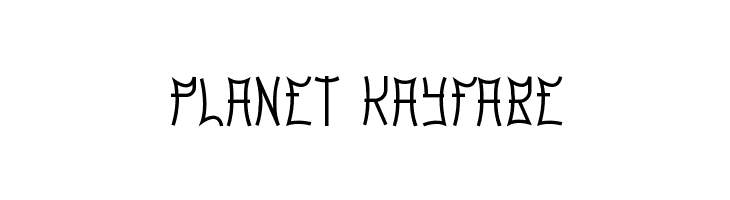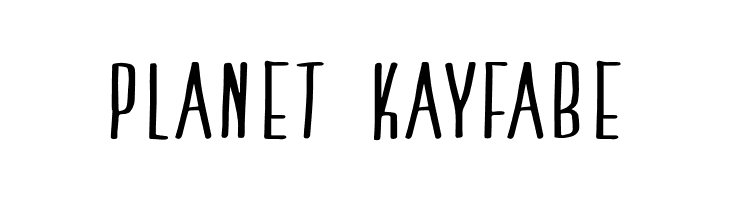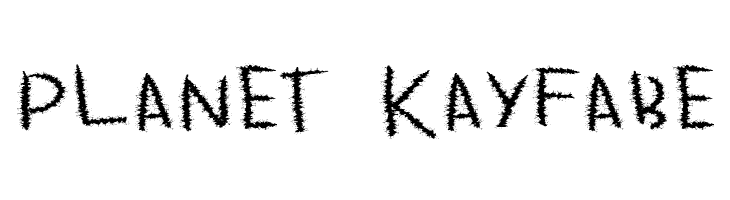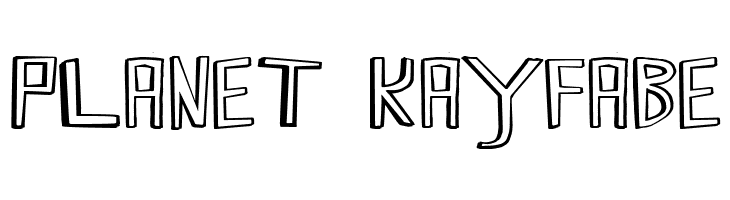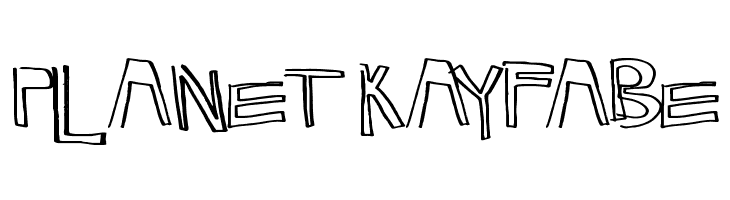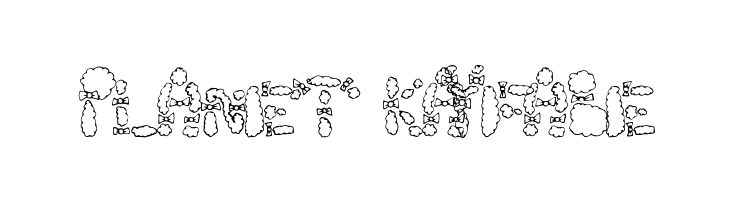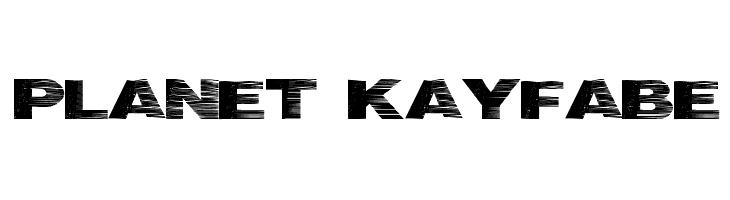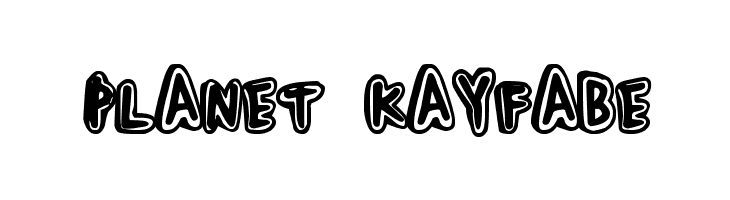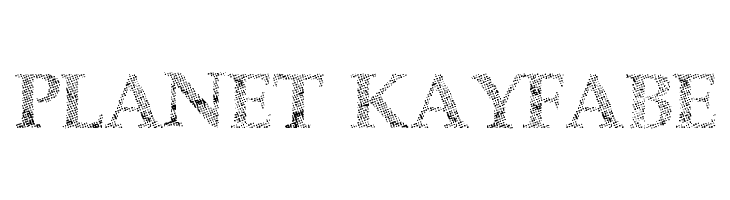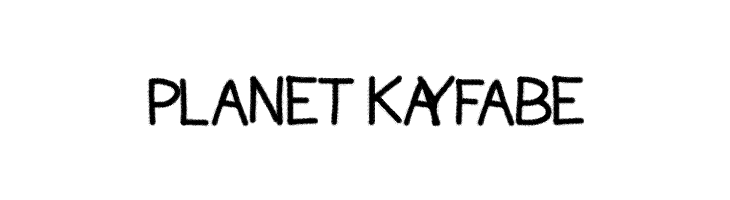
A bold, dynamic font with playful, energetic characters.
A playful, handwritten font with fluid, connected strokes.
A bold, playful font with rounded, dynamic characters.
An ornate and decorative font with elegant swirls and flourishes.
A bold, grunge-style font with a textured, distressed appearance.
A bold, distressed font with a grunge aesthetic and textured, irregular edges.
A gothic-inspired font with sharp angles and dramatic flair.
A playful, dripping font with a gooey, textured appearance.
A whimsical, playful font with cloud-like textures and bow accents.
A bold, jagged font with a hairy, chaotic style.
A serif font with a unique, dotted, half-faded texture.
A dramatic, grungy font with jagged, dripping strokes.
A playful, hand-drawn style font with rounded edges.
A playful, hand-drawn font with tall, narrow letters and a casual style.
A playful, handwritten font with irregular strokes and a casual style.
A bold, playful font with a hand-drawn, artistic style.
A playful, bold font with a shadow effect and hand-drawn style.
A playful, handwritten font with a casual and informal style.
A playful, casual handwritten font with smooth, flowing lines.
A bold, playful stencil font with a modern-retro vibe.
A playful, hand-drawn font with a bold, double-line effect.
A playful, hand-drawn font with a whimsical and informal style.
A bold, 3D font with a vintage-inspired, shadowed design.
A bold, textured font with a dynamic hatch pattern and slanted characters.
A bold, playful font with thick outlines and a cartoonish style.
A bold, textured font with a dynamic, brush-like appearance.
A bold, textured font with a distressed, grunge-like appearance.
A jagged, hand-drawn style font with a textured, energetic appearance.
A decorative font with heart motifs integrated into each character, perfect for romantic themes.
A playful, heart-shaped decorative font with bold contrast.
A bold, graffiti-inspired font with playful, dynamic characters and unique heart-shaped elements.
A whimsical, heart-themed decorative font with a striped pattern.
A bold, textured font with a dynamic, modern design.
An elegant script font with flowing lines and intricate swashes, perfect for luxurious designs.
A bold, textured font with a hand-drawn, artistic style.